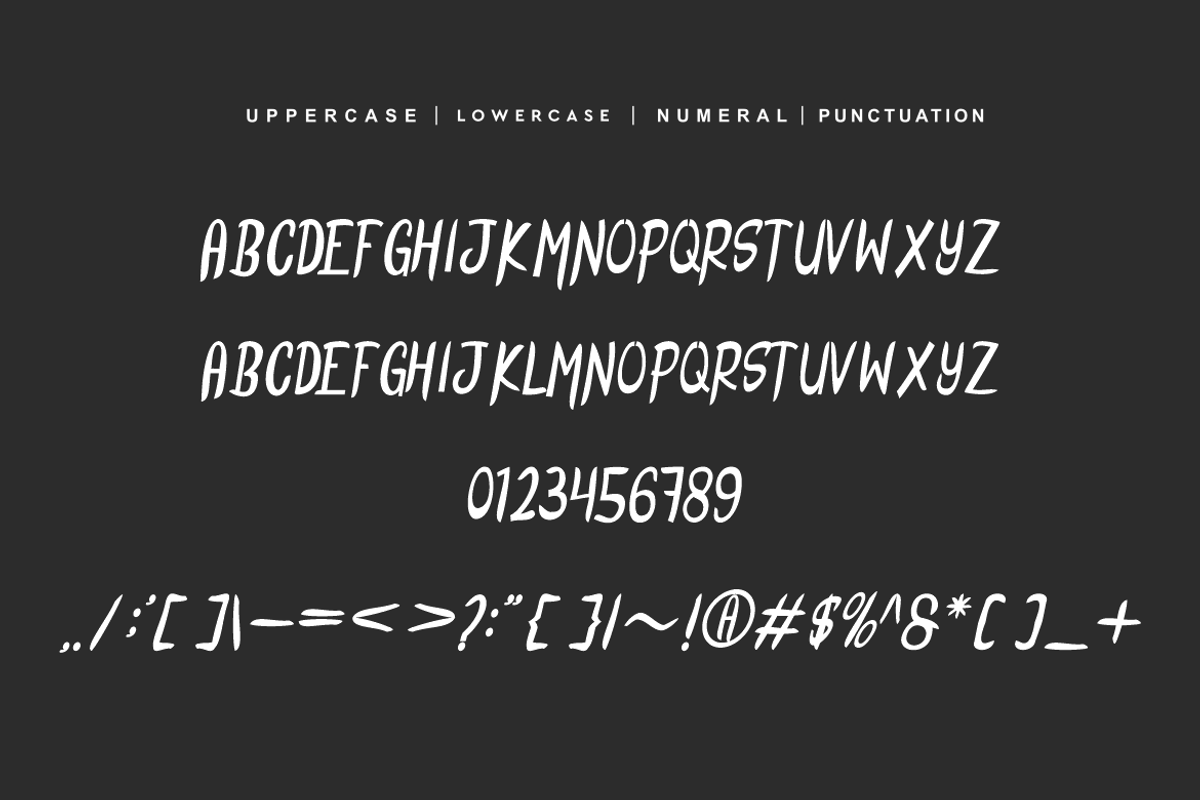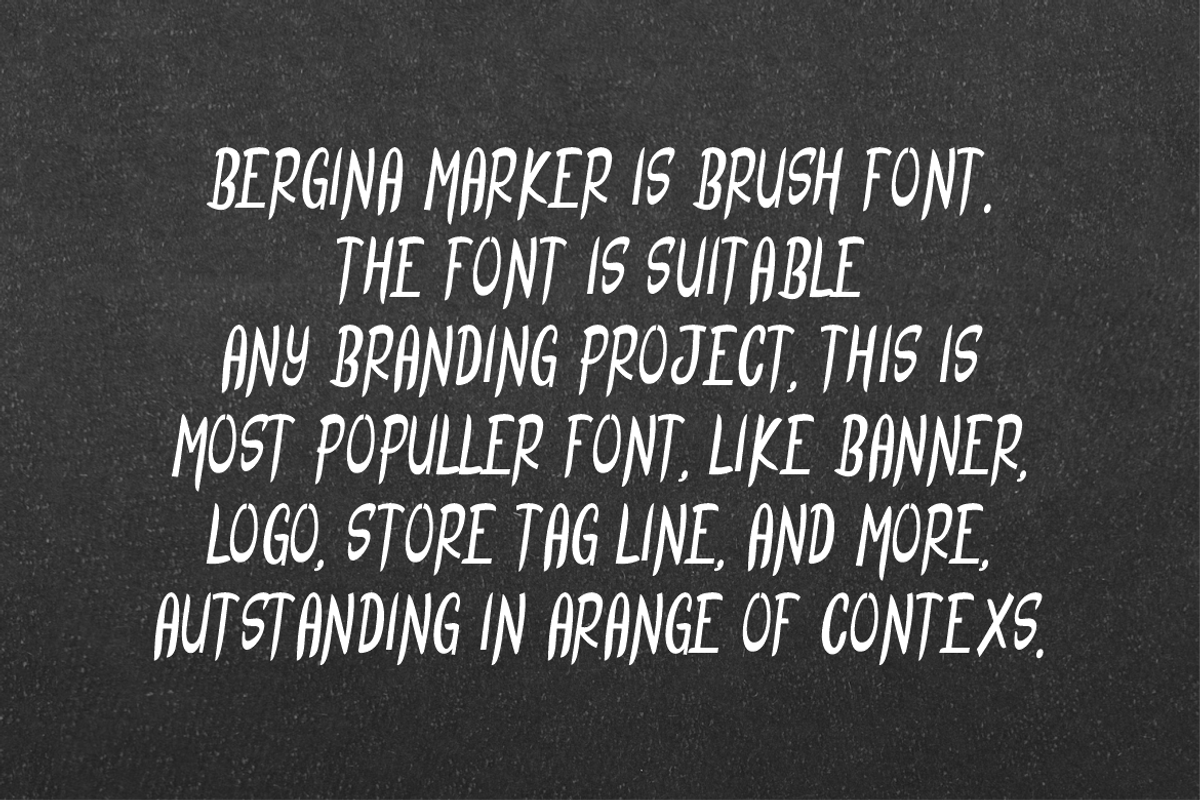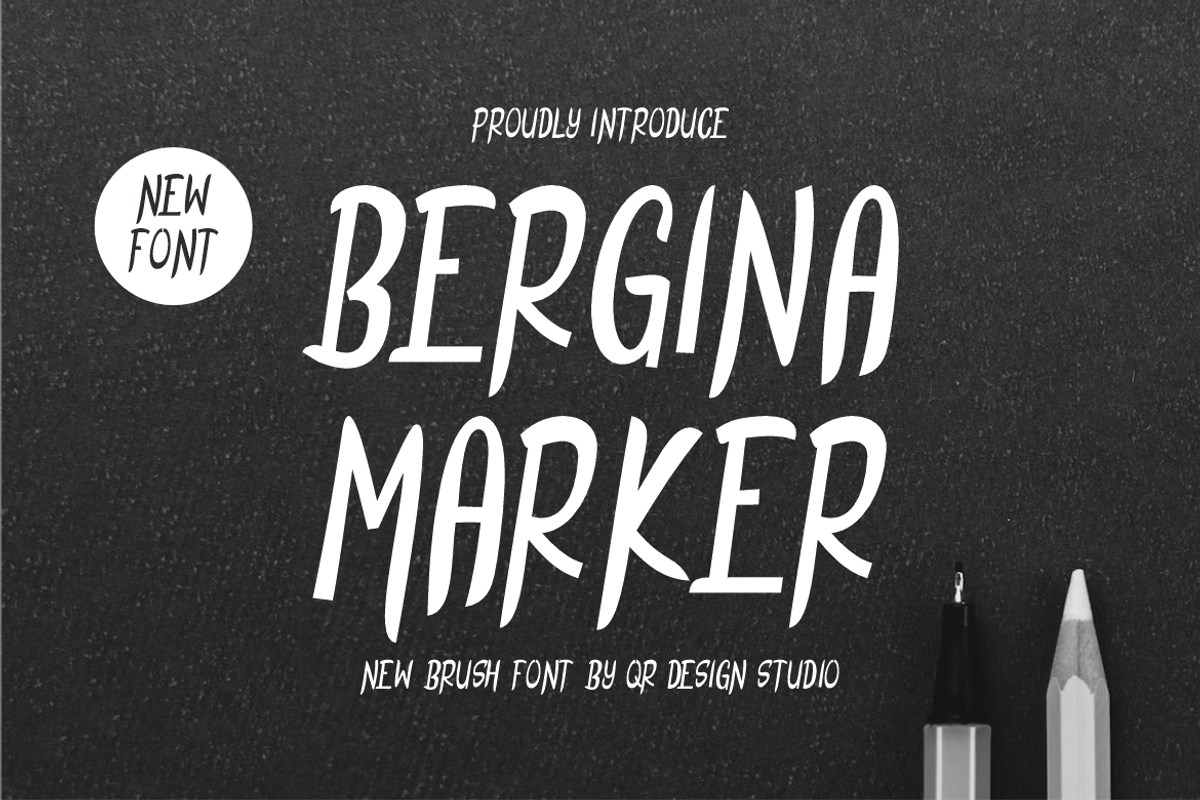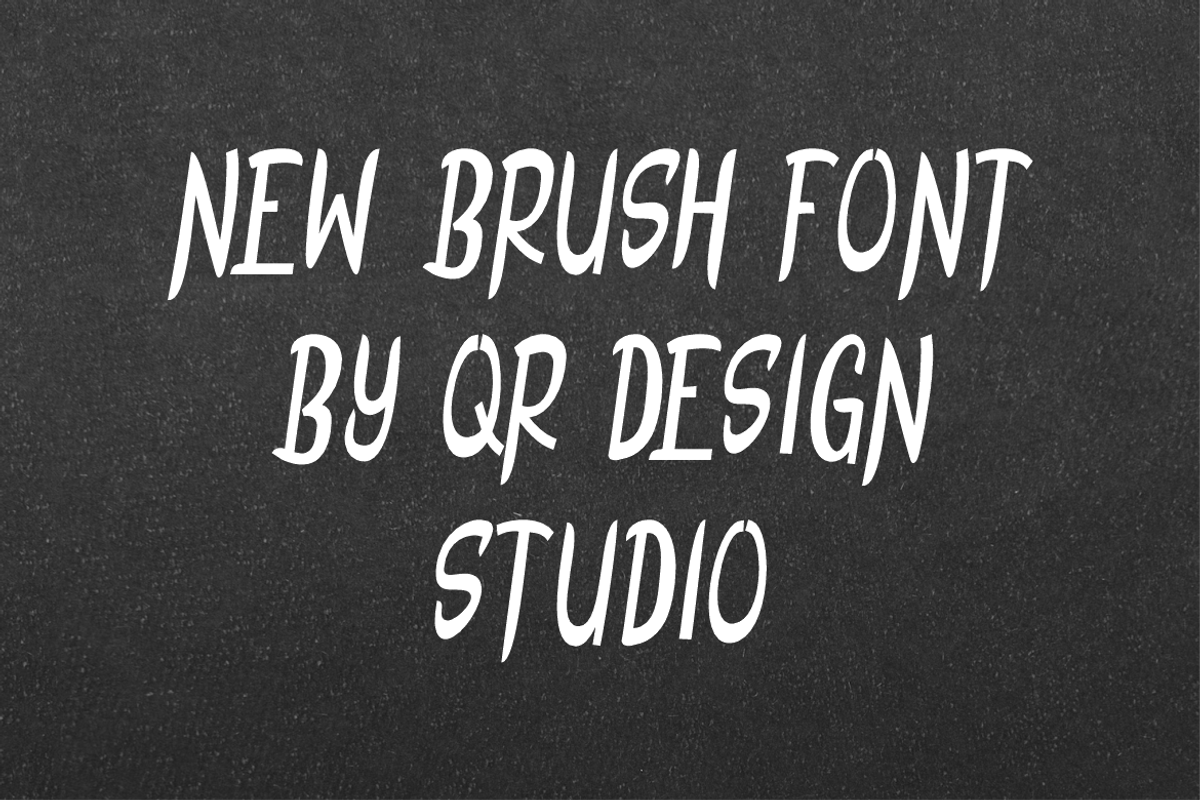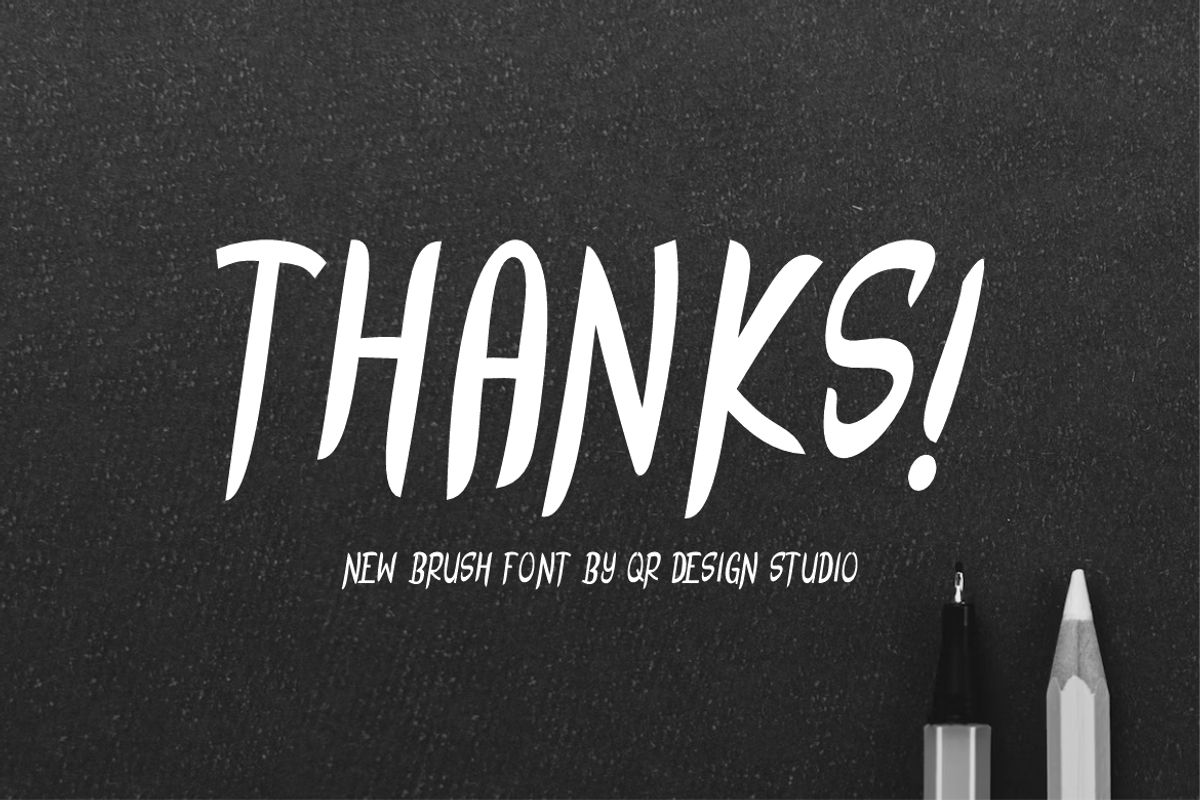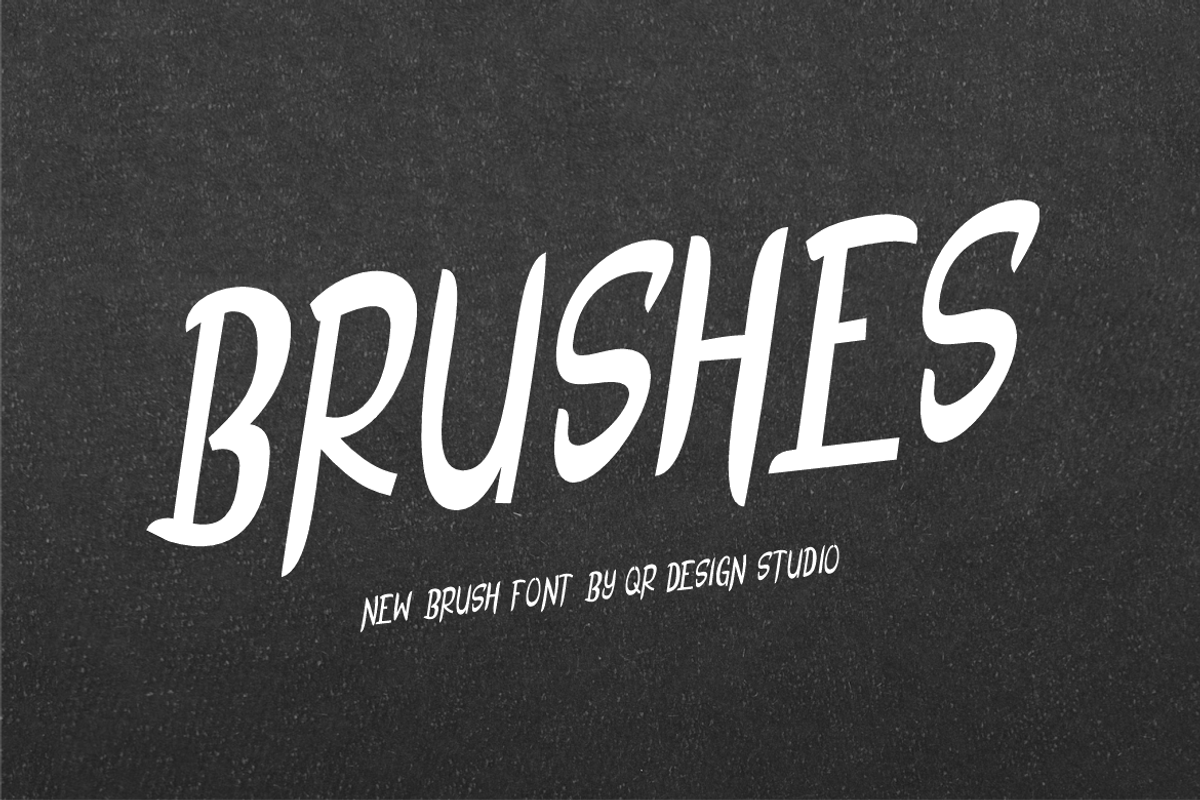
Bergina Marker Font
Bergina Marker Font is a brush and authentic display font. The font is suitable for any branding project like poster, food, logo, sport, and many more. Outstanding in a wide range of contexts.